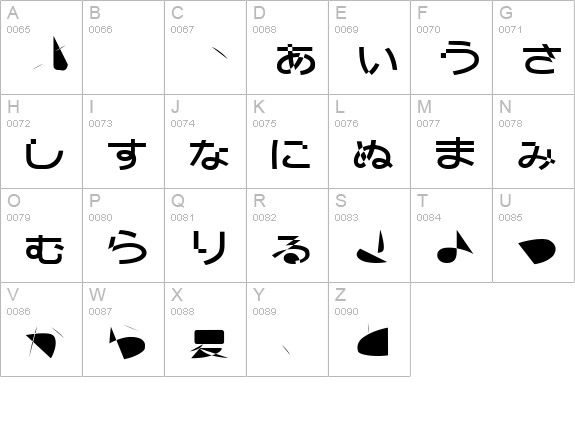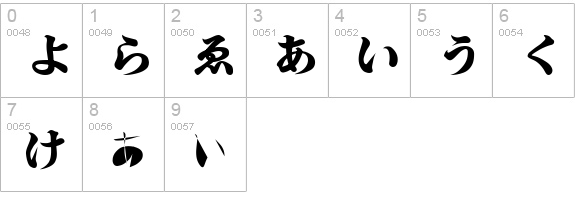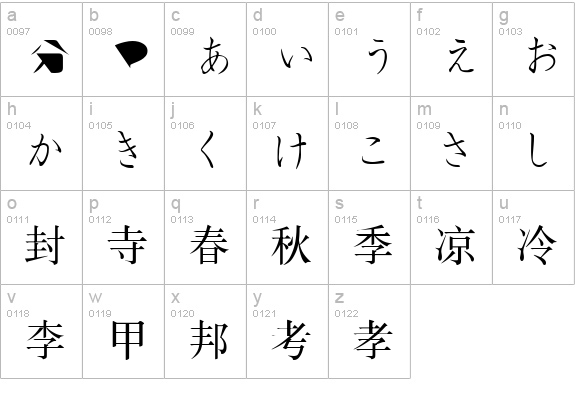
BMUGAsianFont Font Details
BMUGAsianFont is a stylish and versatile font that combines traditional Asian aesthetics with a modern twist. Its elegant strokes and intricate details make it perfect for adding a touch of sophistication to any design project. This unique font is not only visually appealing but also highly functional, making it suitable for a wide range of applications including branding, advertising, and editorial design. Whether you're looking to create eye-catching headlines or elegant body text, BMUGAsianFont has got you covered. Best of all, this font is completely free to download at FontsMarket.com. So why wait? Add a touch of Asian-inspired flair to your next project with BMUGAsianFont today!